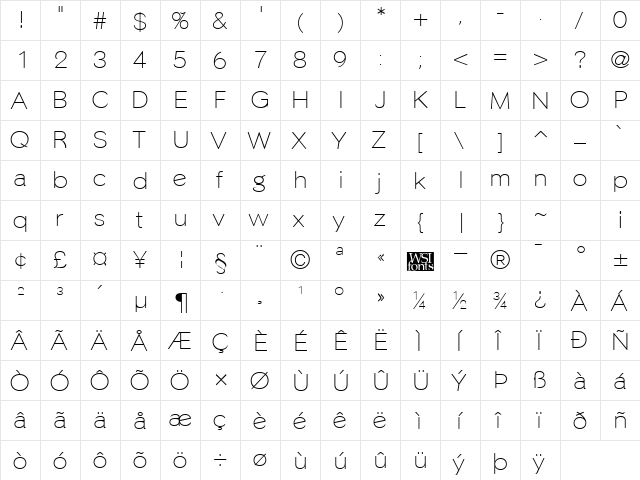
PhinsterFine Regular
Design Context for PhinsterFine Typeface
PhinsterFine takes a measured approach to typography — its balanced proportions and neutral character make it a reliable workhorse for both digital and print work.